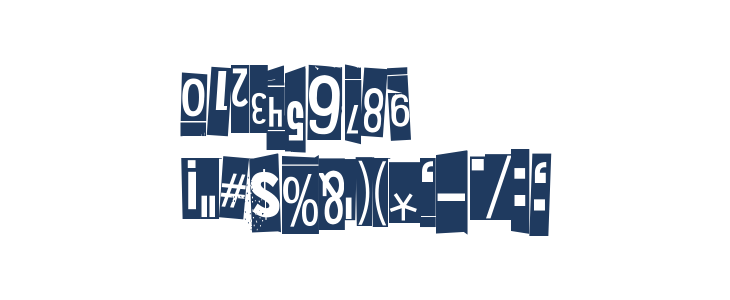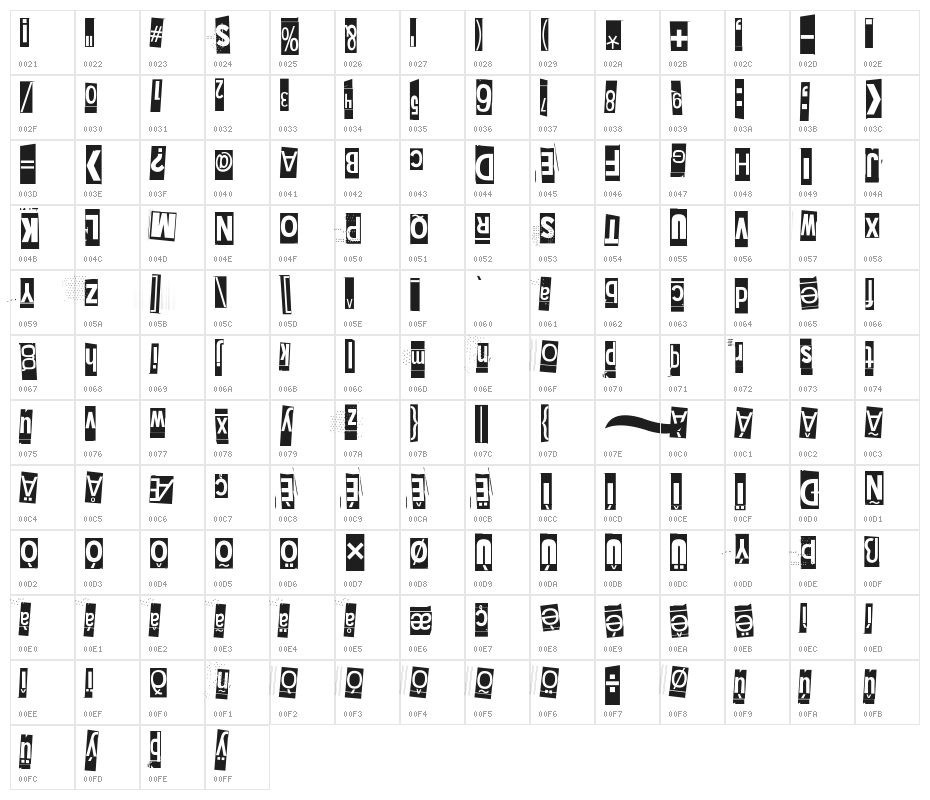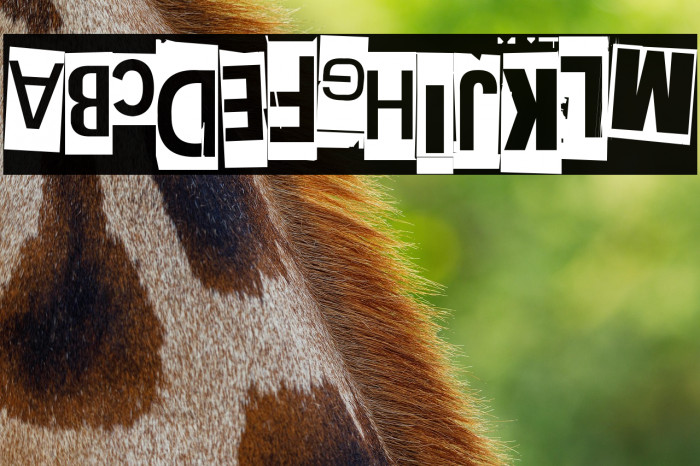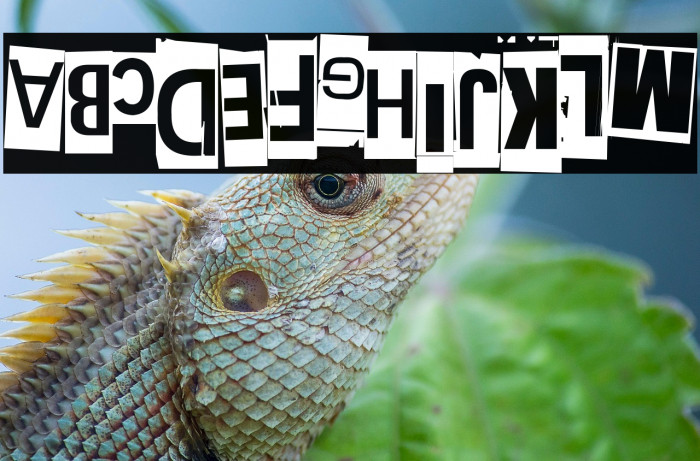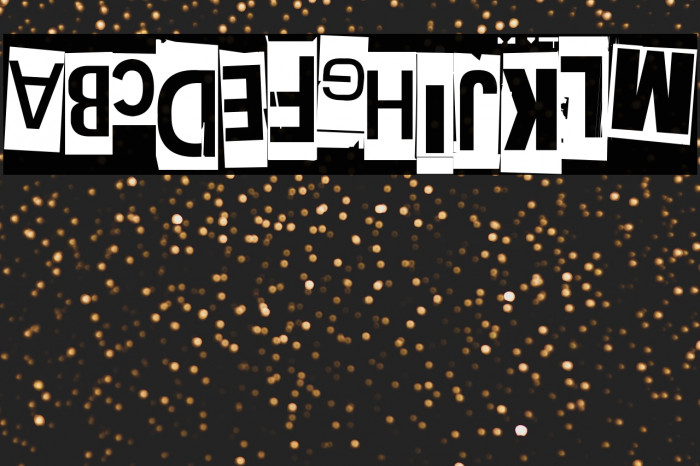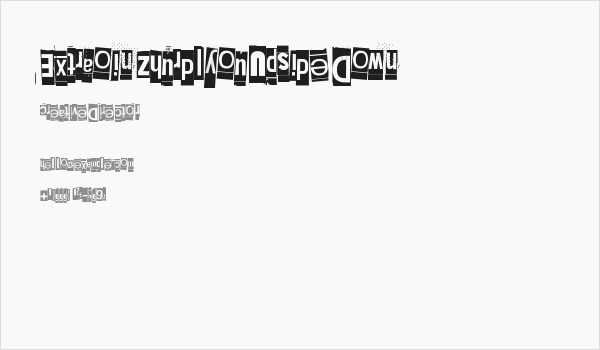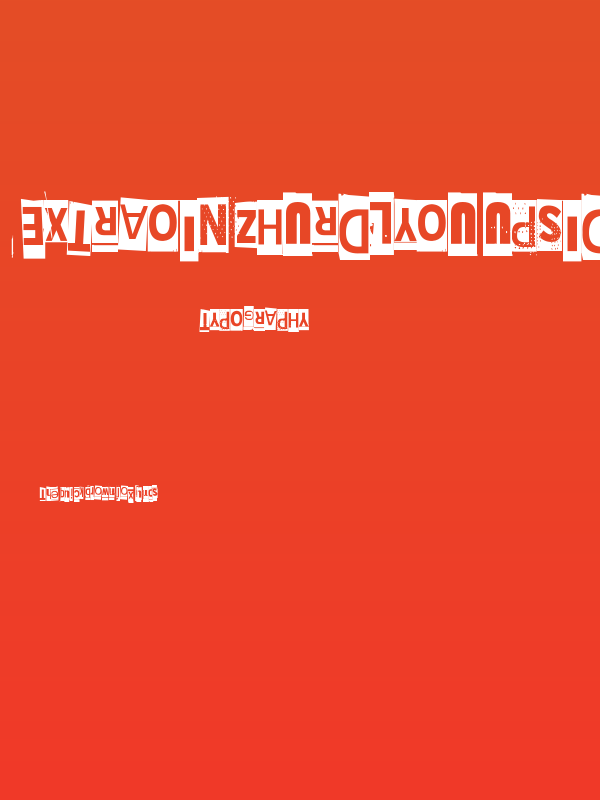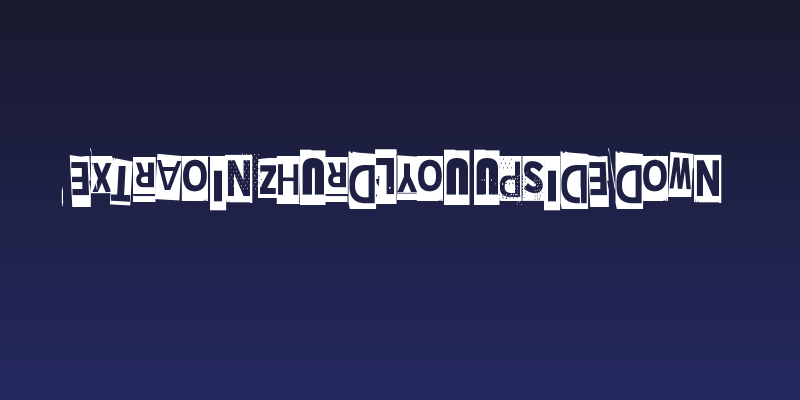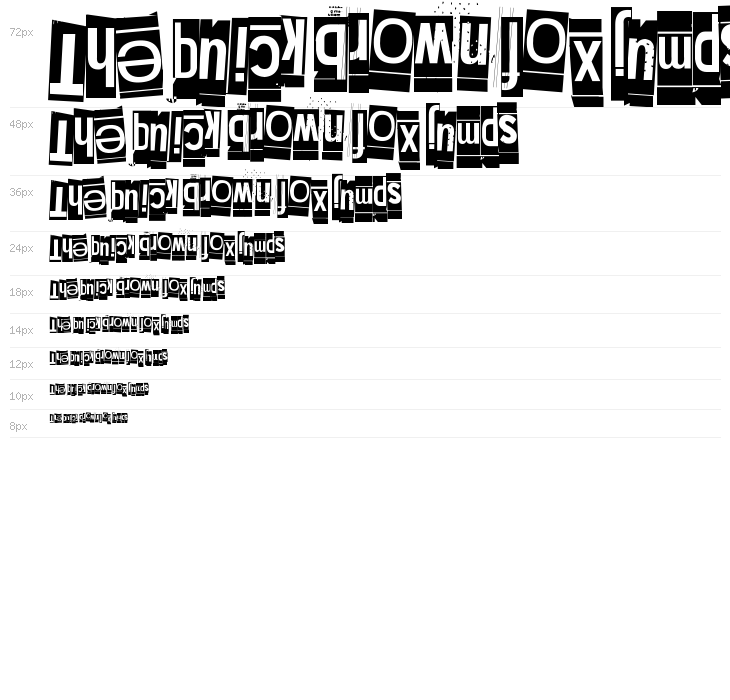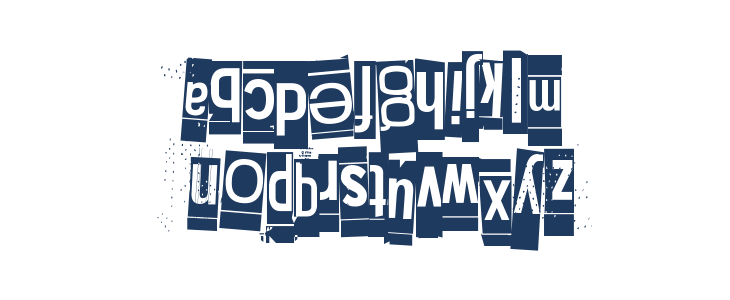
Extraoin Zhurdlyou Upside Down Font
Extraoin Zhurdlyou Upside Down Description
This font features a bold and eclectic style, reminiscent of a ransom note with its cut-out letter appearance. Each character is uniquely styled, with varying sizes and orientations, creating a chaotic yet artistic look. The letters are presented in a mix of uppercase and lowercase, each enclosed in individual blocks, contributing to its distinctive and unconventional aesthetic. The font's design is playful and rebellious, making it stand out with its high contrast and irregular shapes. It is ideal for projects that require a bold statement or an edgy, creative touch.
| Overall Style | Rebellious, Artistic, Eclectic |
| Use Case | Headlines, Posters, Creative Designs |
| Proposed Projects | Ideal for creative projects such as album covers, posters, or any design needing a bold, unconventional look. |